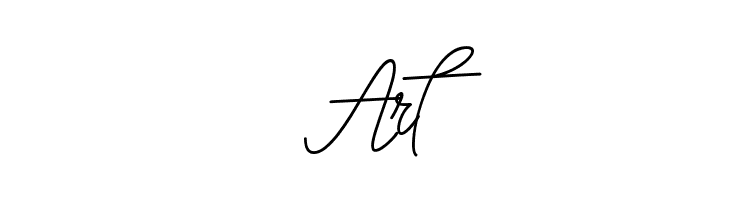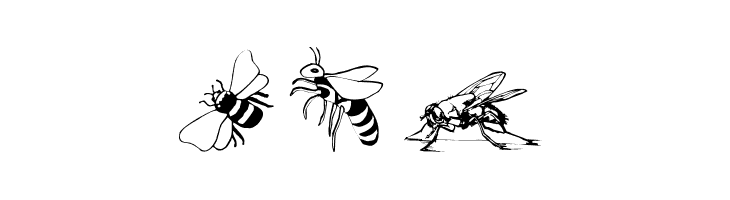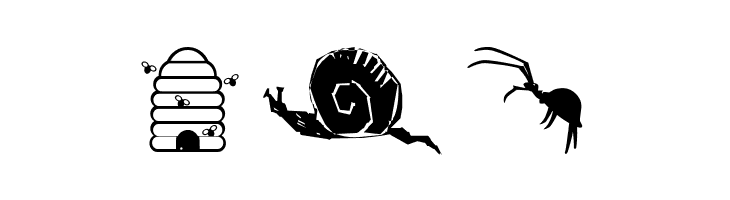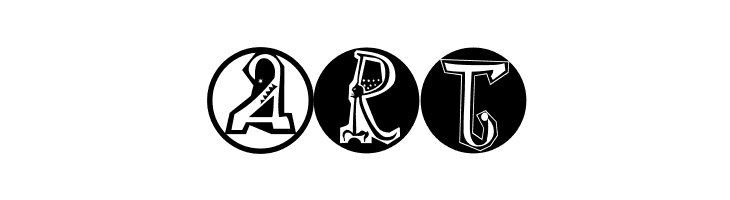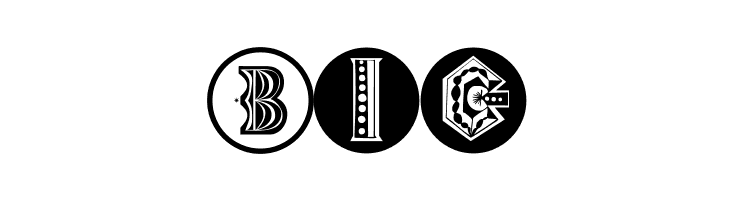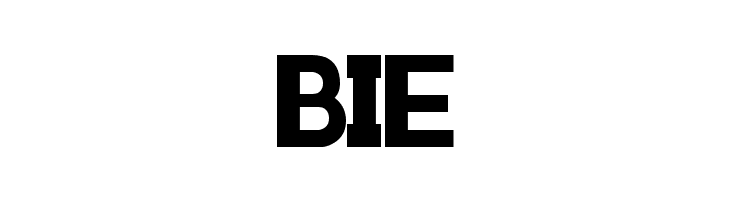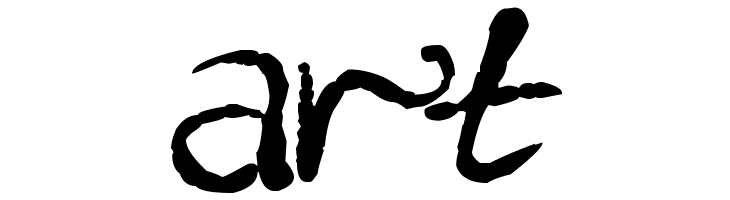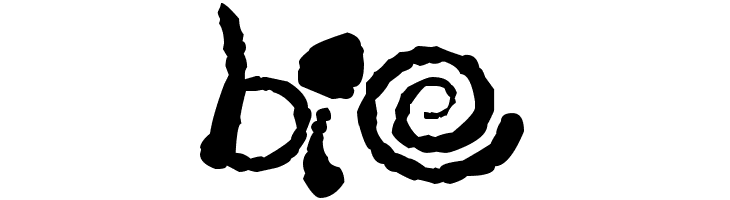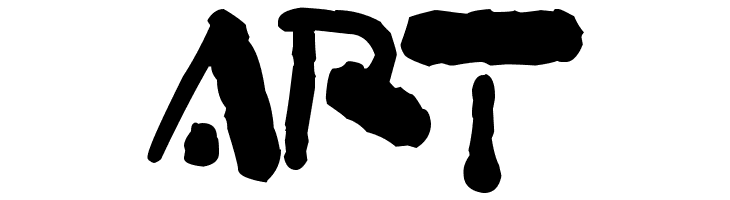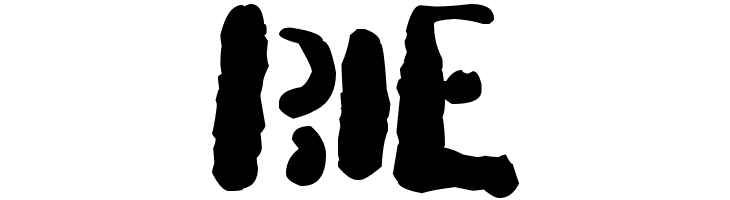
• ImresDiscs
A decorative and whimsical font with characters enclosed in circular discs, ideal for playful designs.
• IndianTiger
A bold, textured font with a wild, tiger-stripe appearance.
• infelinery
A playful and elegant script font with a handwritten style.
• INICIO NORMAL
• Ink Line Demo
Elegant script font with a handwritten style.
• Inkbleeda
A bold, expressive font with an ink-splatter, brush-stroke style.
• Inkling
A bold, brush-style font with dynamic, expressive strokes.
• Inkling Italic
A bold, italic handwritten font with a dynamic and artistic style.
• Inky Scrawls
• Insects07
Illustrative dingbat font with insect and nature-themed pictograms.